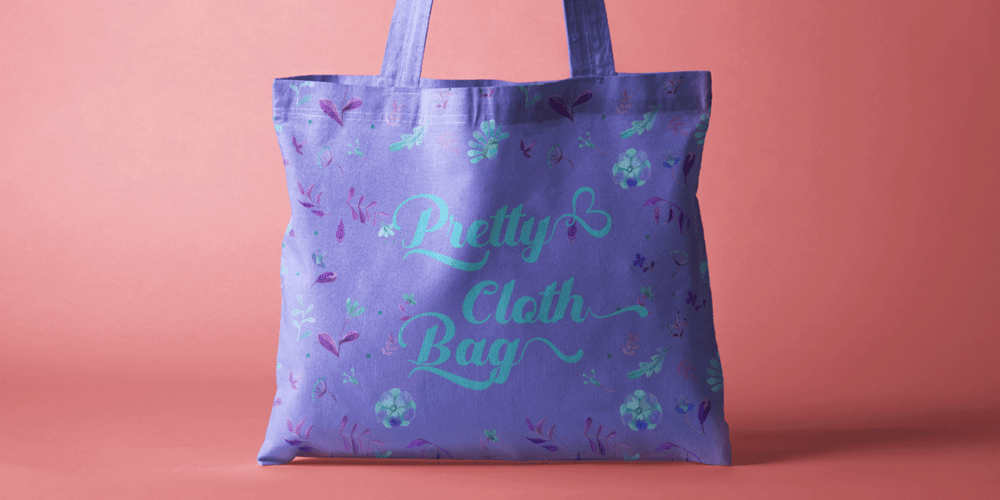
Yamada Font Family was designed by Marwah and published by BBA Key. Yamada contains 2 styles and family package options. Yamada Script, a new fresh & modern font with handmade calligraphy, decorative characters and dancing lineage! So wonderful for invitations like greeting cards, branding material, business cards, quotes, posters, and more !! Yamada Script The comes with 647 glyphs. Alternate characters are divided into several Open Type features such as Swash, Stylistic Sets, Stylistic Alternate, Contextual Alternate. Open Type features are accessible by using Open Type savvy programs such as Adobe Illustrator, Adobe InDesign, Adobe Photoshop Corel Draw X versions, and Microsoft Word. This font has PUA unicode so that all alternative characters can be easily accessed by craftsmen or designers. Yamada Uppercase & lowercase International signature & symbol Punctuation Support & PUA number Unicode Style Style Alternative Style Style Range 1-16 Contextual Character Variations.